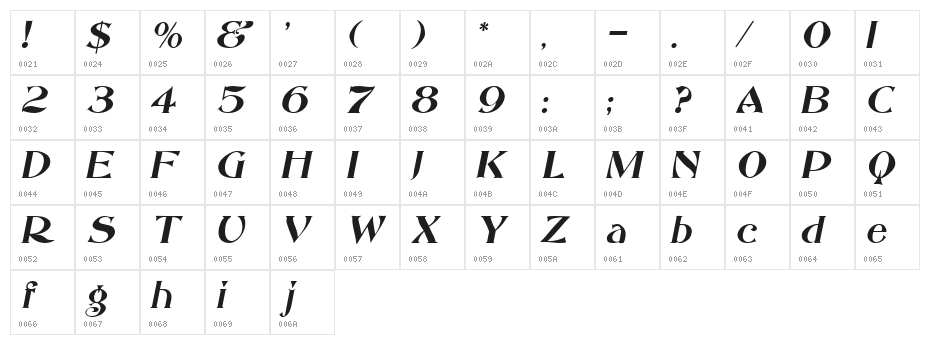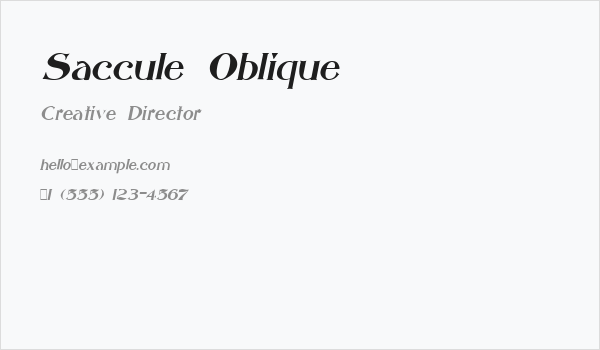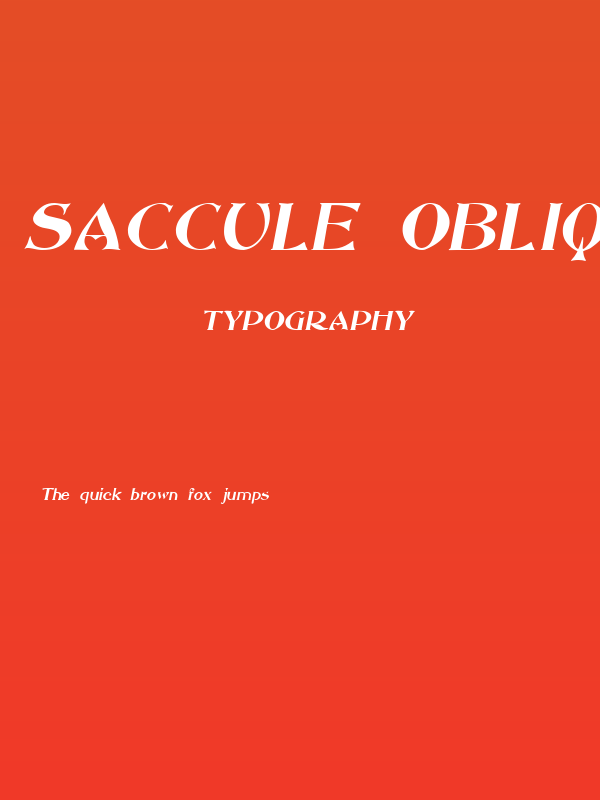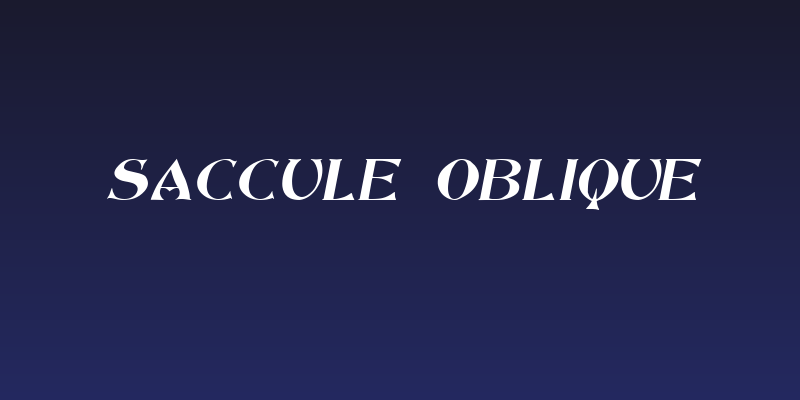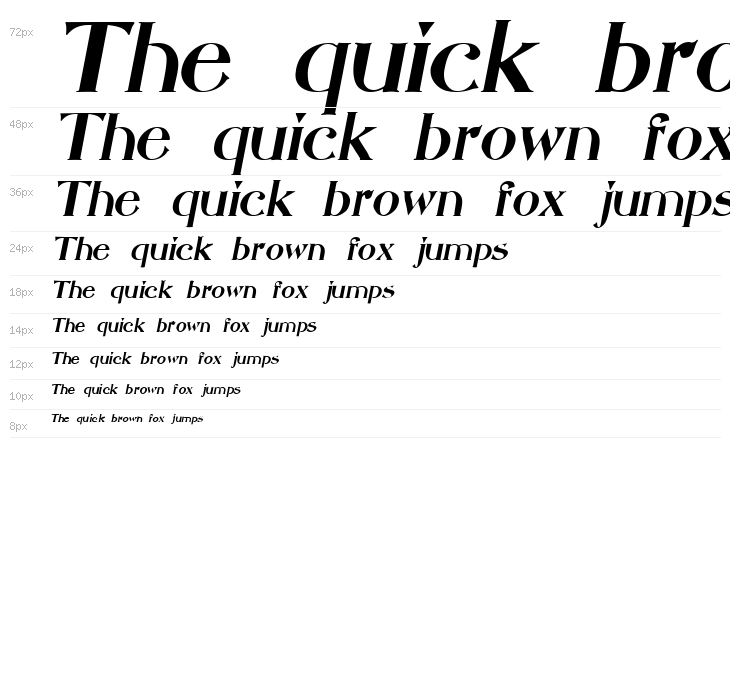
Saccule Oblique Font
Saccule Oblique Description
This font features a dynamic and elegant oblique style, characterized by its sharp, angular serifs and a distinct forward slant. The uppercase letters exhibit a bold presence with unique, stylized cuts that add a sense of movement and flair. The lowercase letters maintain this dynamic quality, with some characters like 'g' and 'y' showcasing intricate loops and curves. Numbers are bold and consistent, ensuring readability while maintaining the font's overall aesthetic. Special characters are crafted with the same attention to detail, making them stand out while remaining cohesive with the rest of the typeface. The font's design is both modern and sophisticated, making it suitable for a variety of creative applications.
Use CaseHeadlines, Logos, Editorial Design
Proposed ProjectsIdeal for branding, editorial design, and high-impact headlines.